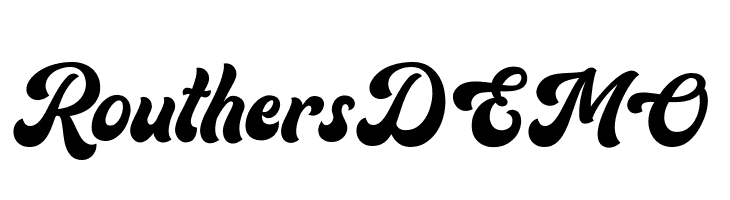
A playful and energetic handwritten font with dynamic letterforms.
A bold, elegant script font with flowing, cursive letterforms.
A stylish, handwritten font with elegant, flowing lines and a modern touch.
A dynamic, handwritten-style font with bold, fluid strokes.
A dynamic, handwritten font with fluid, expressive characters.
A bold, brush-style font with high contrast and dynamic strokes.
A bold, cursive font with elegant, flowing lines and a modern aesthetic.